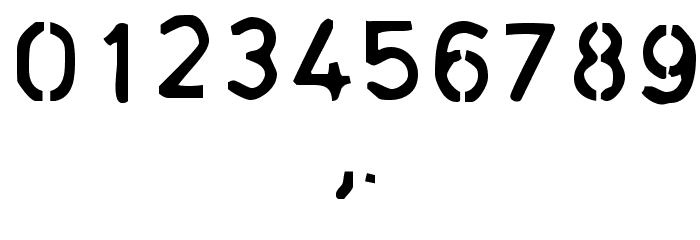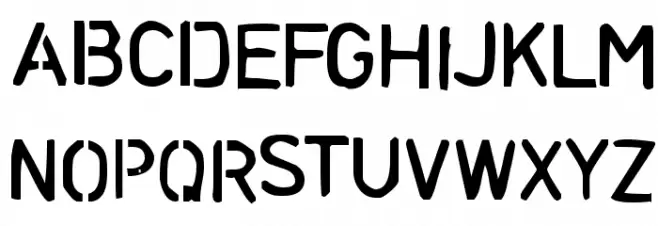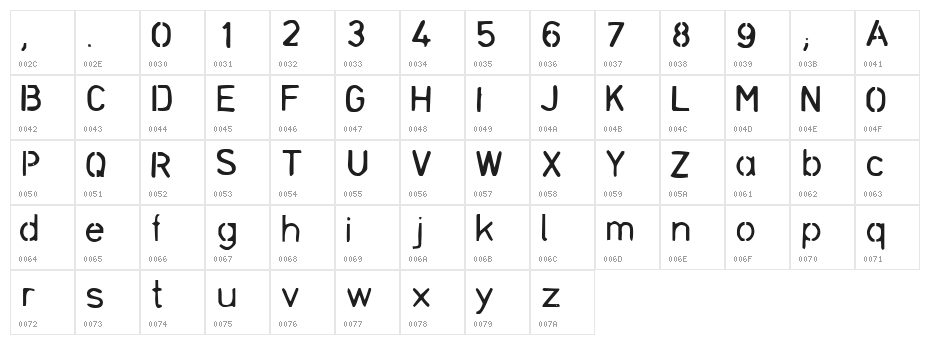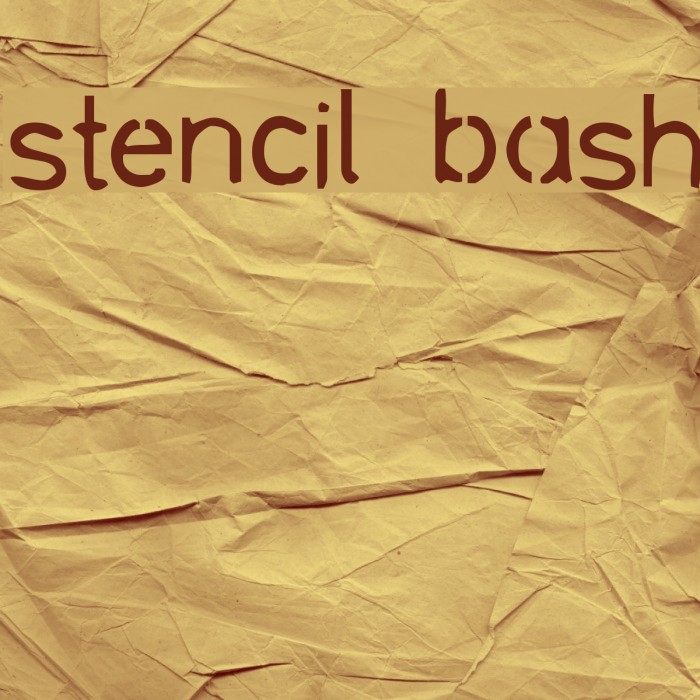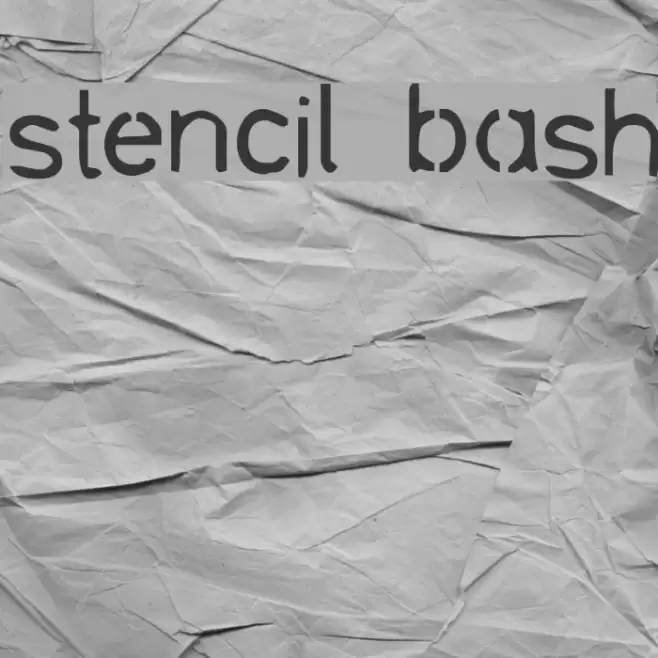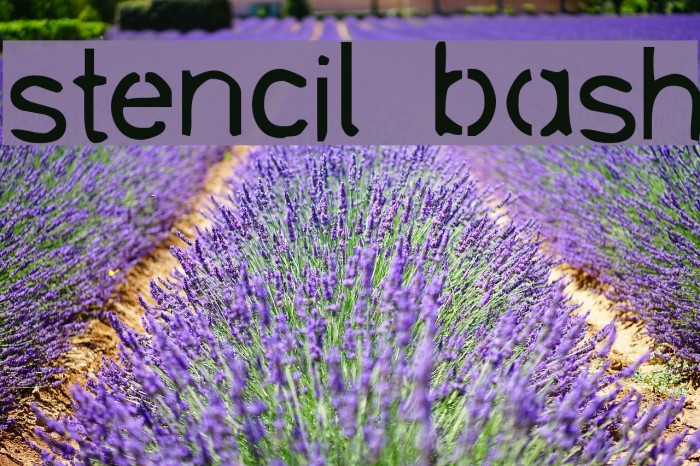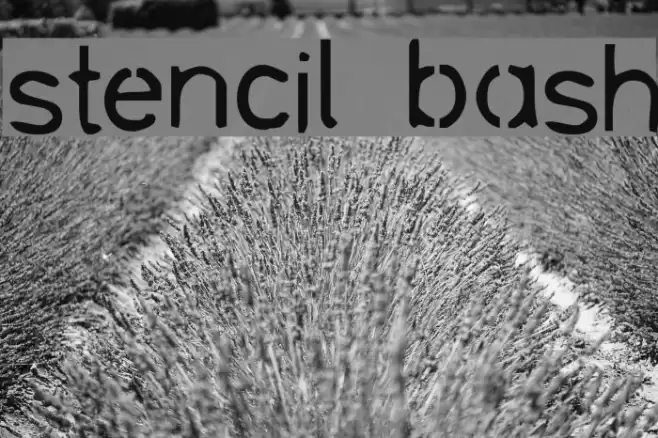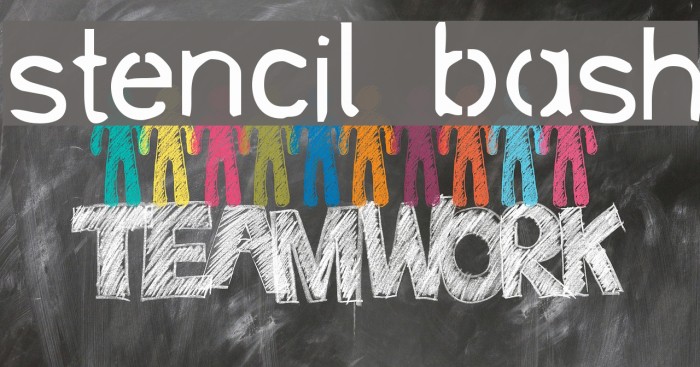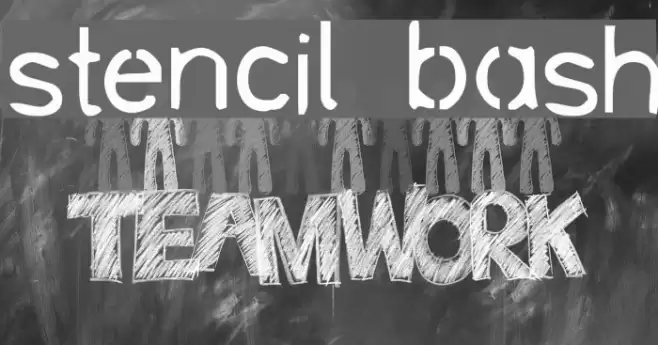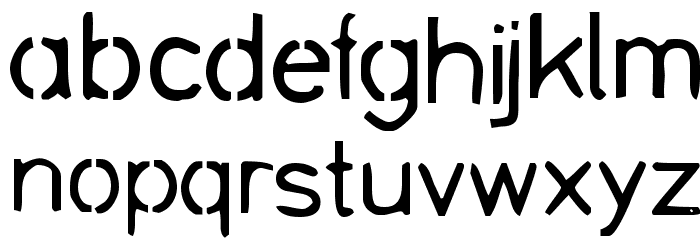
stencil bash Font
stencil bash Description
This font features a bold, stencil-like design with distinct cutouts that give it a rugged and industrial feel. The uppercase letters are strong and angular, while the lowercase letters maintain a consistent style with slightly softer edges. The numerals and special characters follow the same aesthetic, ensuring uniformity across all characters. The font's unique cutout design makes it stand out, adding a touch of creativity and modernity to any project. Its bold presence is ideal for making a statement, while the clear, legible forms ensure readability.
| Overall Style | Modern, Industrial |
| Proposed Projects | Ideal for branding, posters, signage, and any project needing a bold, industrial aesthetic. |